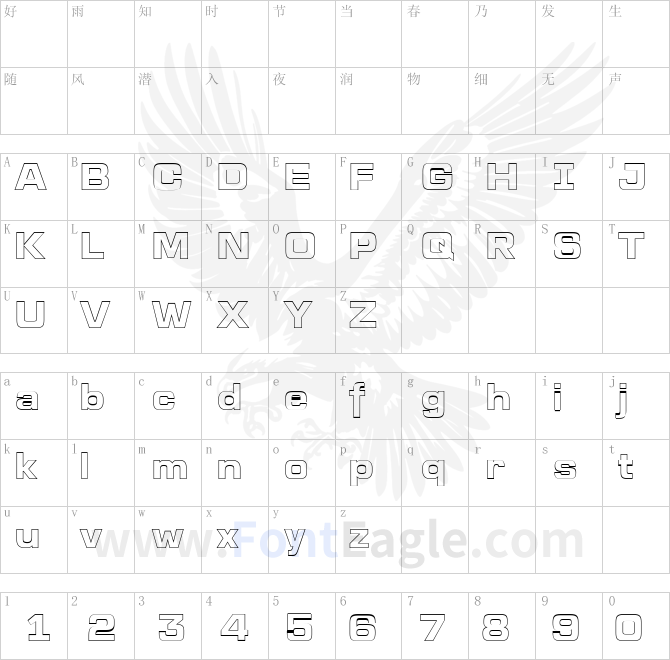
a_LineaSansOtl-Bold is a great font, widely used in graphic design, single-page menu design, poster design and other fields, and is deeply loved by designers.a_LineaSansOtl-Bold download.